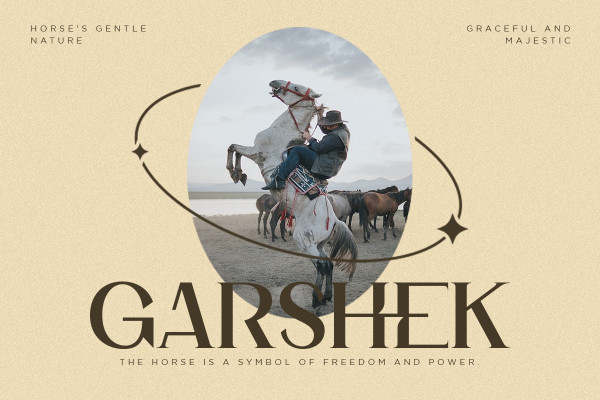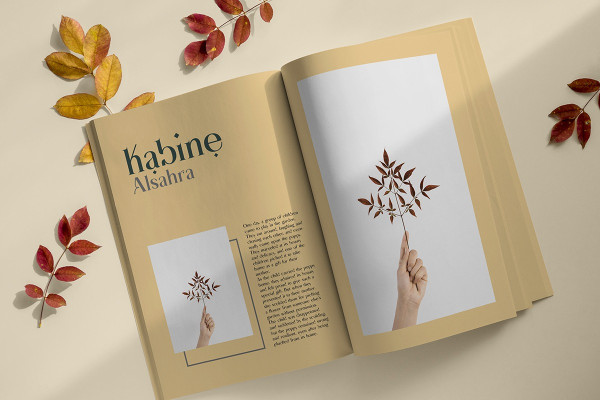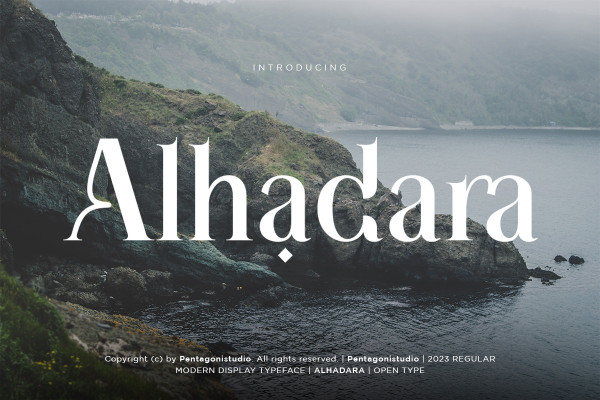
Alhadara Font
Alhadara Font Is A Modern Serif Font with Stylistic Alternates and Ligatures. Its optimum legibility, clean, and geometric look is perfect branding, brochures, greeting cards, quotes, posters, stationary, design titles, blog headers, and much more.